2 Google Fonts Similar to Sofia Pro
Sofia Pro is a sans-serif font that was created in 2009. It has rounded curves and open terminals. It is elegant, friendly, and modern.
What makes this font so unique is the higher x-height. This makes is a great font where any small text will be used. It would work well for mobile apps and any small print.
Fortunately, I was able to find two decent alternatives. As usual, they are not exact matches.
However, if you are on a budget then either one of the fonts below would make for a great alternative to Sofia Pro.
What Google Fonts are Similar to Sofia Pro?
The most similar fonts from Google Fonts to Sofia Pro are:
- Poppins
- Nunito Sans
Either one of these fonts will work great as an alternative to Sofia Pro.
Lets take a deep dive into each one to cover the differences and similarities.
Poppins
Poppins is going to be your best bet because it is the most similar to Sofia Pro from the Google font library.
It is a very close match to Sofia Pro. The biggest differences is the overall height in Sofia Pro, but the formation of the letters are almost exactly the same in lowercase.
In uppercase is where things star to differ slightly.
Letters such as the "G", "M", "Q", and "G" are pretty noticeable when it comes to their differences.
This means that poppins would make a great body text alternative and only an ok option for headlines and titles that use a lot of uppercase.
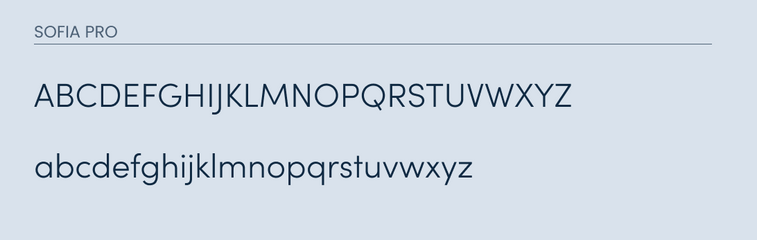
Nunito Sans
Nunito Sans is also another great looking font that is similar to Sofia Pro. It does a great job matching all of the lowercase letters.
If you look closely enough, you will notice a minor difference in the "l" and "t". Overall it gives a similar look and feel.
Just like in Poppins, the uppercase doesn't do the best job in matching. It's differences lie in the "J", "Q", "S", and "G".
Conclusion
Overall, it is difficult to find an exact match. Either Nunito Sans or Poppins will work, but if you are in a position to do so it might be best to simply purchase the font from the creator themselves. I would recommend using either font if you plan on mainly using it for lowercase letters.